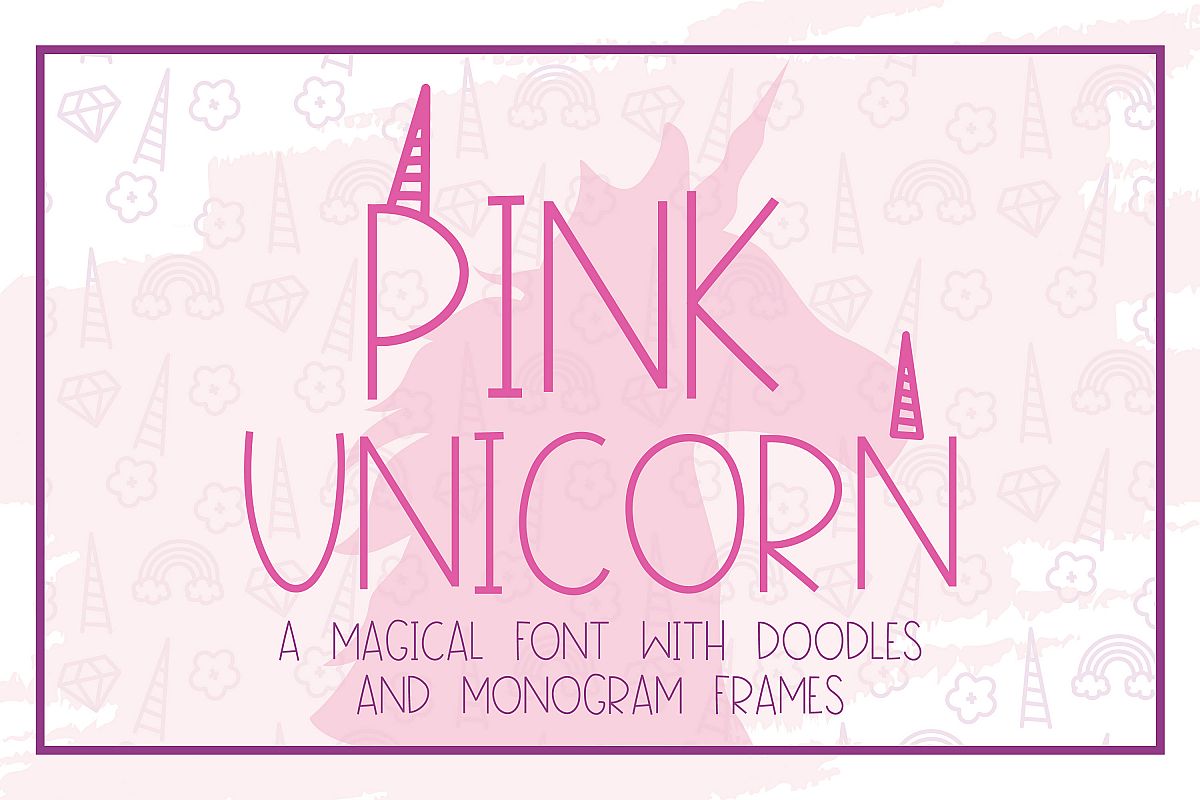
- Lowercase: A-Z capital letters without horns
- Uppercase: A-Z with horns
- 10 Doodles and Monogram Frames, see photos for a cheat sheet
This font does not come with punctuation.